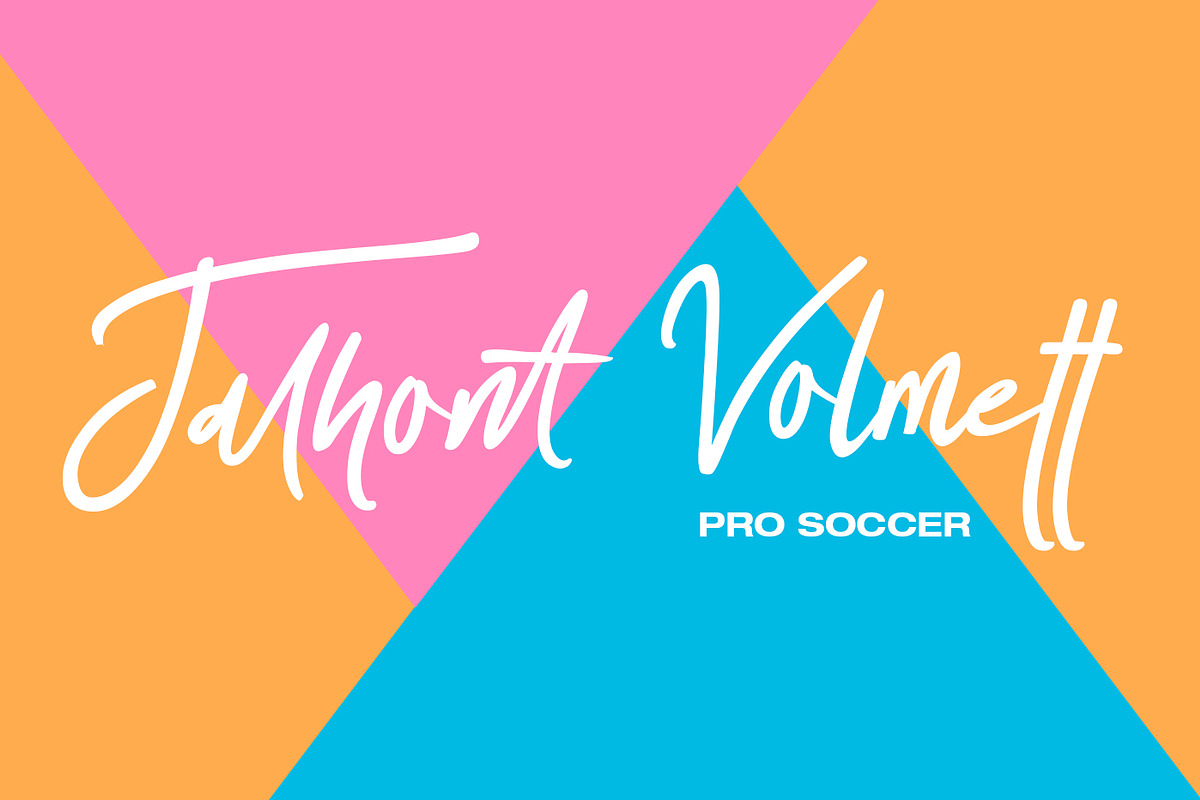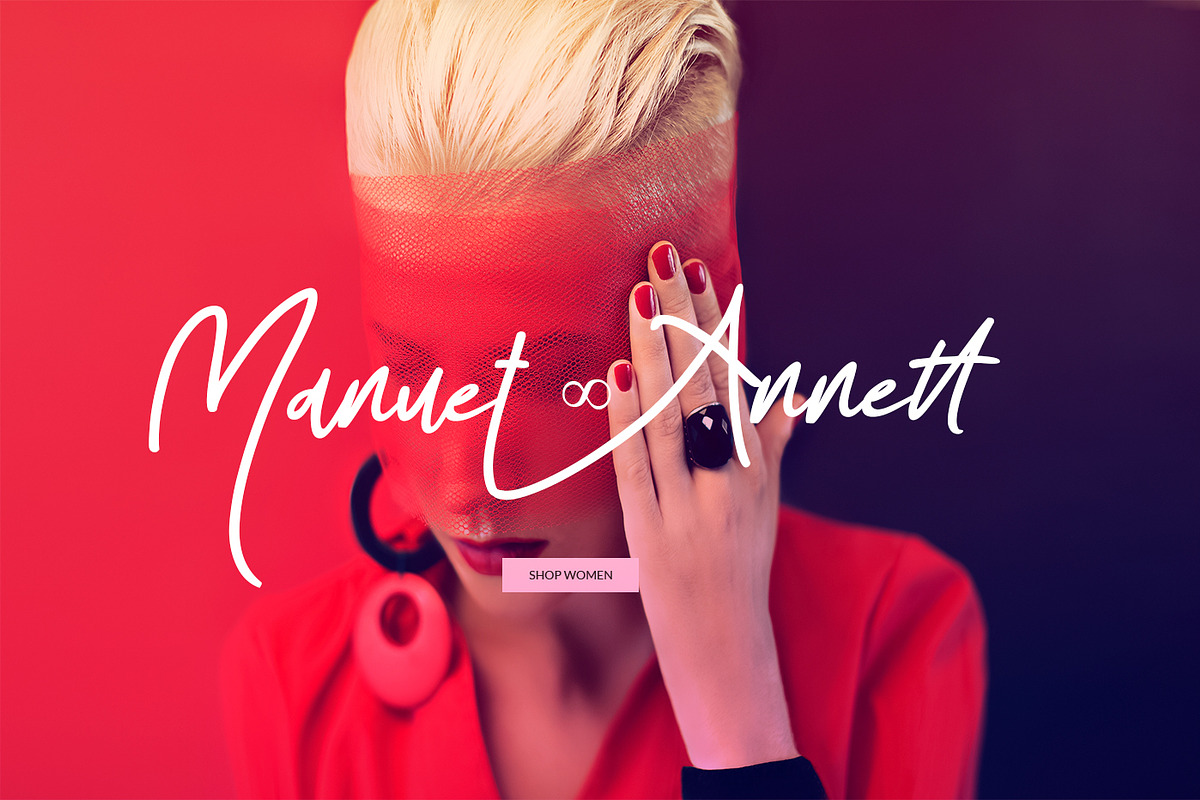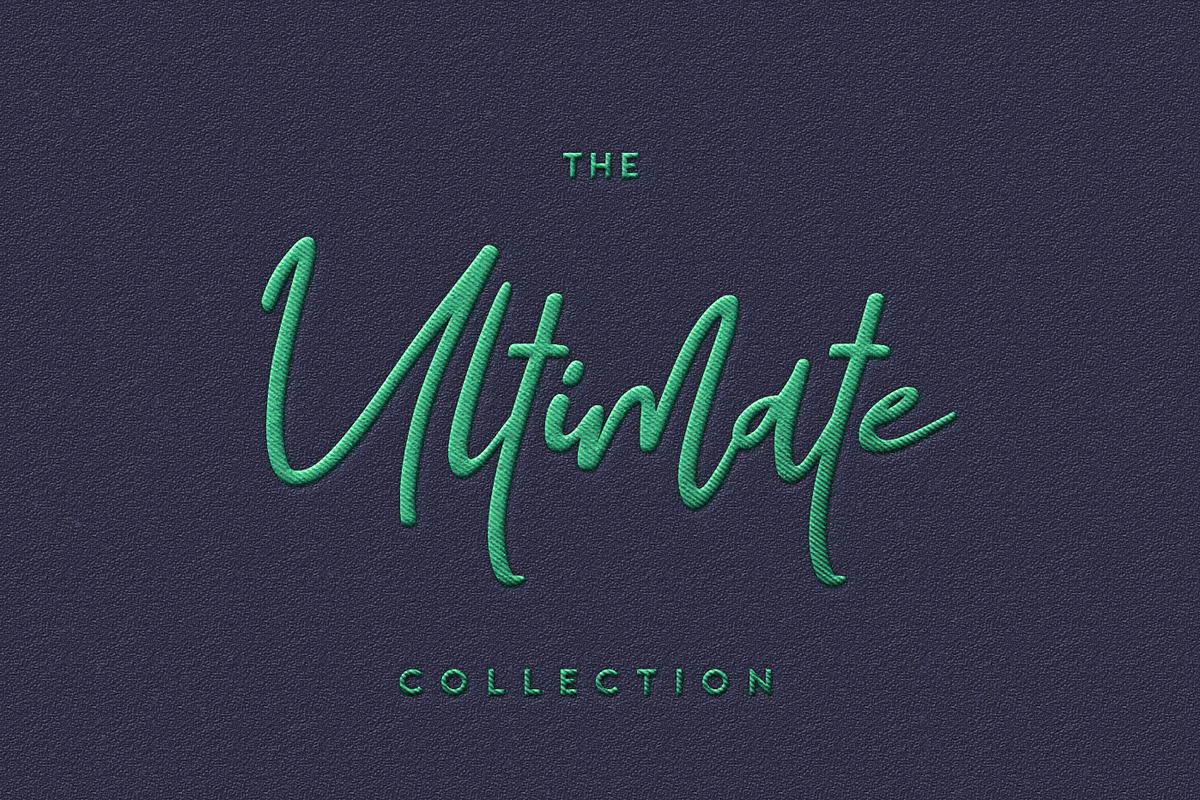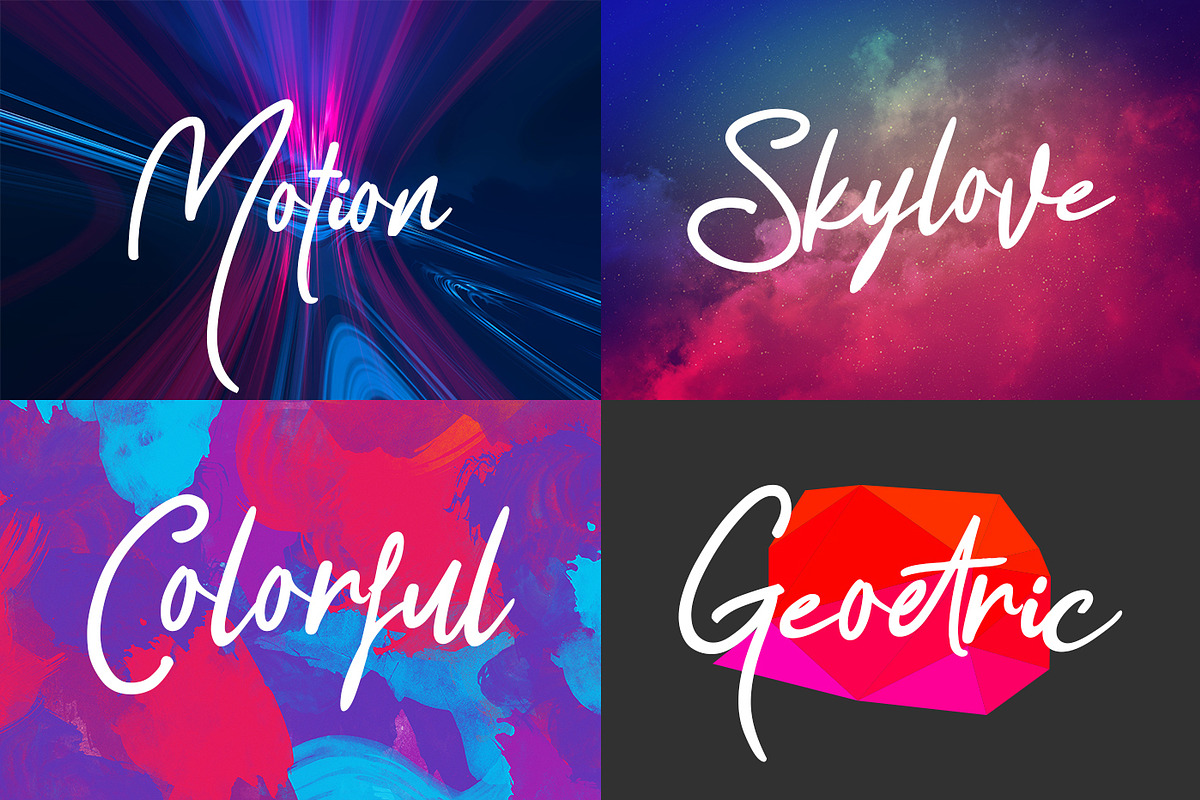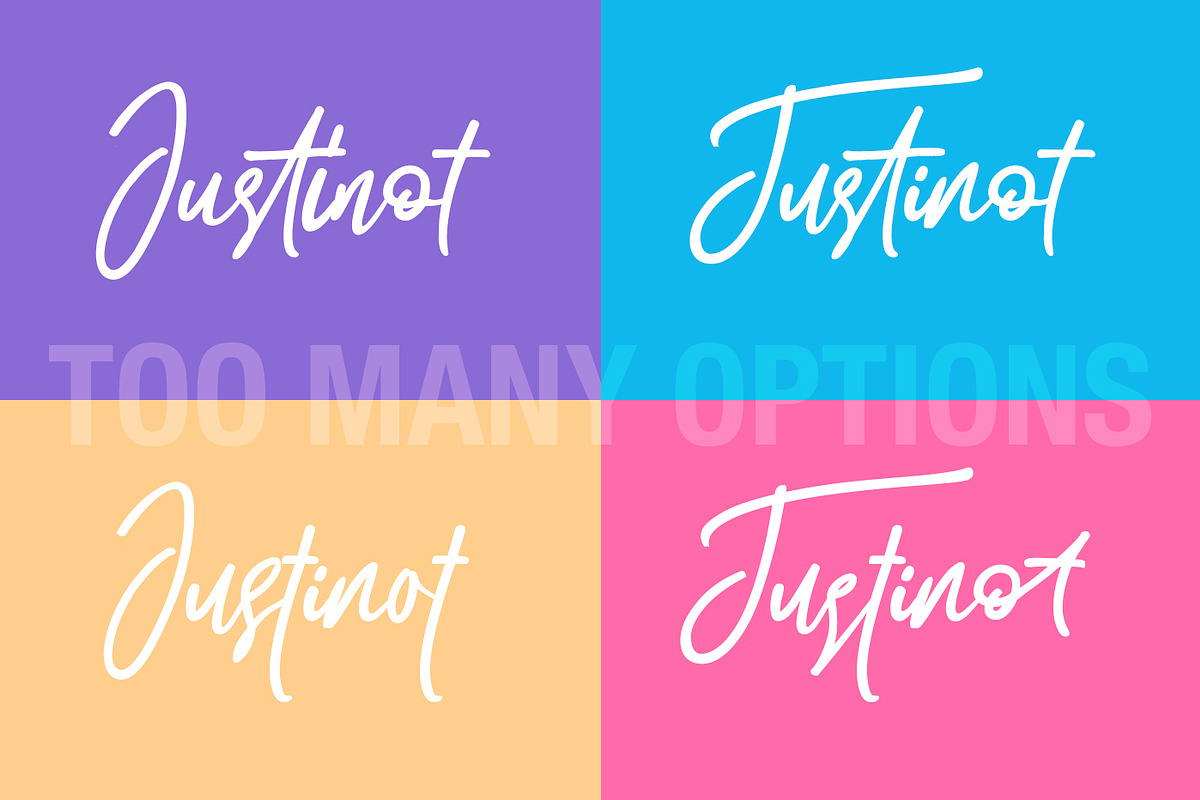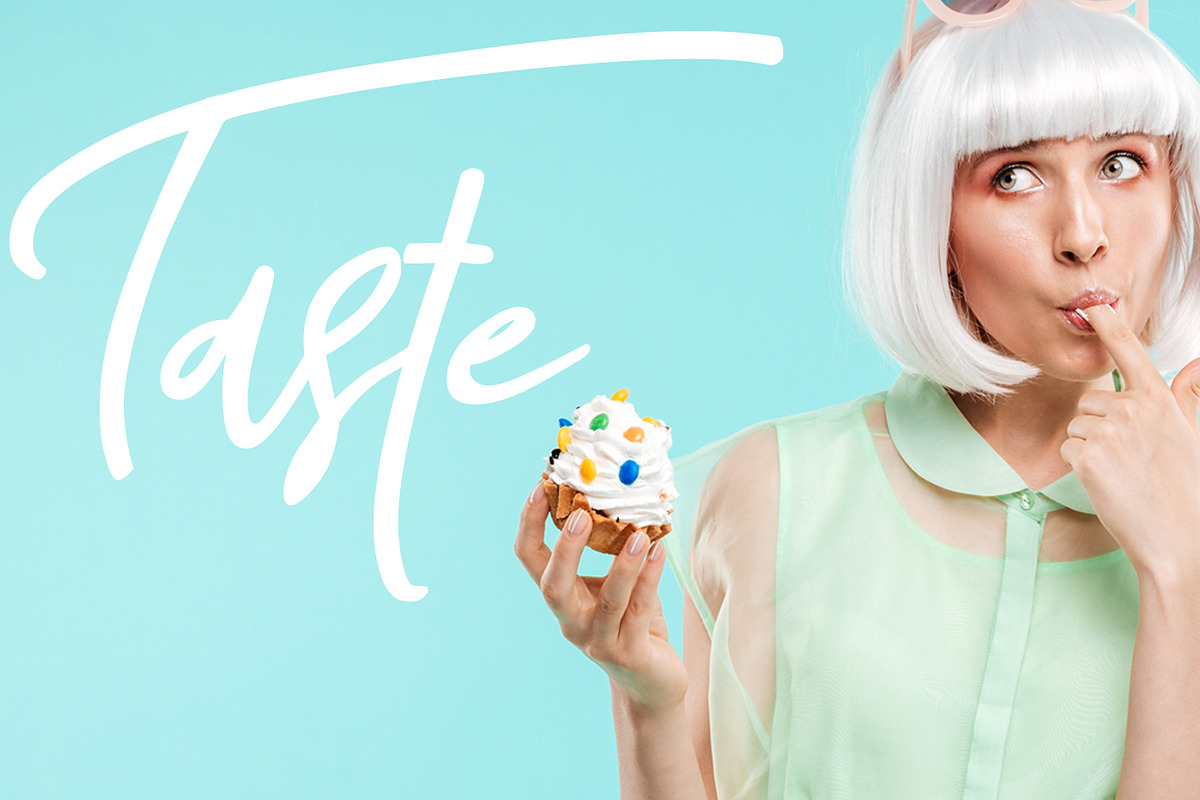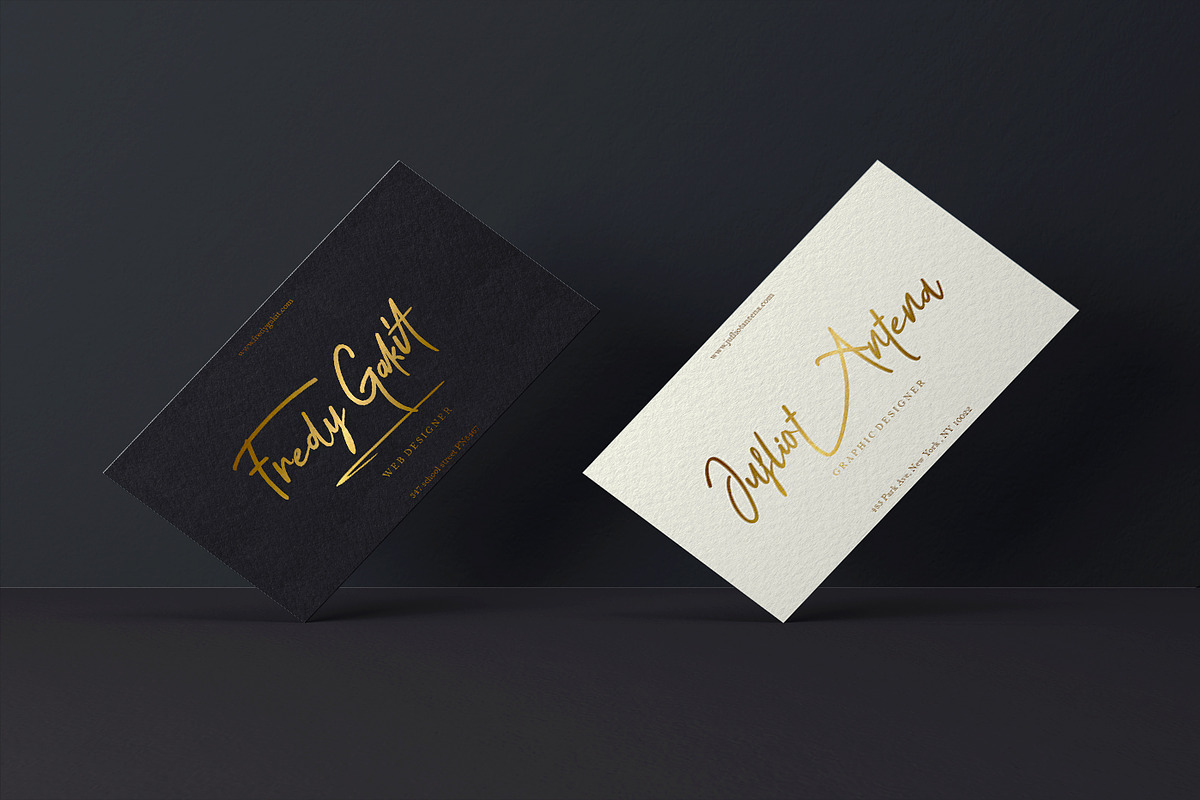
Justinot Infinity Marker Font
Let me introduce you the font Justinot Infinity. It flows like a signature while you type it. It really shows the art of hand-work. It is very legible even though its nature looks like it has extreme lines. It is really unique in this regard. Awesome! Isn't it? :)
Characteristic company logos
Projects you need to utilize a premium font
The projects that require a font including lots of alternates.
Why Justinot Infinity Marker Font is worth a look
Justinot Infinity Marker Font by Design Dukkan fits naturally into Branding, posters, packaging, typography.